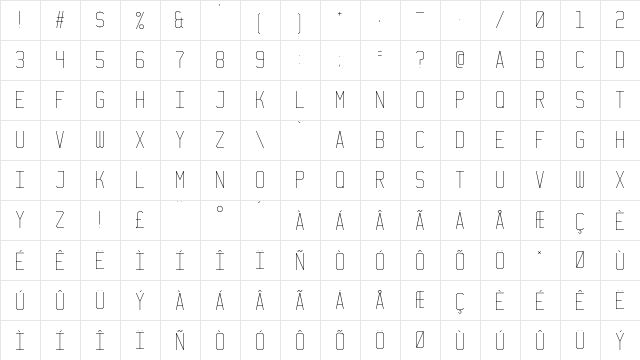
Bucheon Regular
| Designer | HENRIavecunK |
Design Context for Bucheon Typeface
Bucheon is a composed and adaptable typeface that performs quietly and consistently across a wide range of design contexts.